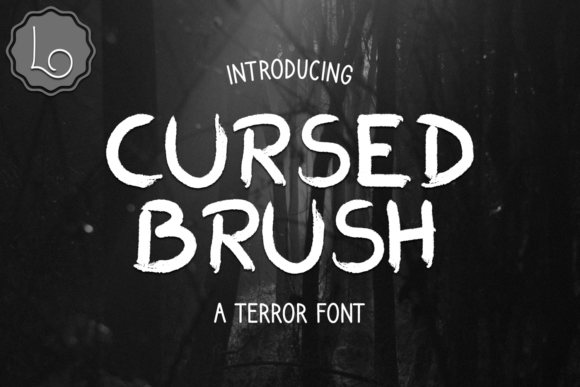
Cursed Brush: The Ultimate Display Font for Horror Design
The visual personality of Cursed Brush is defined by its chaotic yet controlled energy. Unlike standard serif or sans-serif Display fonts, this typeface mimics the look of a paintbrush dragged through wet ink or dried blood. It captures a raw, organic feel that feels both professional and slightly unhinged. When comparing it to other premium options, Cursed Brush offers a distinct texture that flat vector fonts simply cannot replicate.
The letterforms are constructed with varying stroke widths, creating a dynamic rhythm that draws the eye immediately. The weight distribution is heavy on the downstrokes, giving the text a sense of gravity and permanence. This makes it an excellent choice when you need a premium Display font that commands attention without requiring excessive sizing.
While the aesthetic is intentionally rough, the spacing between characters remains functional enough for headlines. However, because it is a free Display font designed for impact rather than body text, kerning should be adjusted carefully to avoid clashing strokes. It sits comfortably alongside other professional Fonts when used as a headline accent.
This typeface is incredibly versatile within the horror and thriller genres, but its application extends far beyond just spooky decorations. Designers can leverage its unique character across various media platforms effectively.
When creating a brand identity for a haunted attraction, a metal band, or a gritty streetwear label, Cursed Brush for logo design provides immediate recognition. Its irregular edges add a handmade quality that suggests authenticity and edge, making it superior to generic script logos.
For brands that want to stand out in a saturated market, using Cursed Brush for branding can define a specific mood. It works exceptionally well for packaging labels on craft beers, energy drinks, or limited-edition merchandise where a bold statement is required.
In the digital realm, Cursed Brush for posters/social media/packaging ensures high engagement rates. Its high contrast and dramatic flair stop the scroll on Instagram feeds and Facebook timelines, making it a top-tier choice for event promotions and campaign graphics.
Surprisingly, this font also finds a niche in alternative wedding designs. If you are planning a gothic-themed ceremony, Cursed Brush for wedding invitations/cards/typography adds a sophisticated, dark elegance that traditional scripts cannot achieve.
To maximize the impact of Cursed Brush, selecting the right companion typeface is crucial. You do not want two competing display styles fighting for dominance; instead, you need balance. A common question among designers is what fonts pair well with Cursed Brush? The answer lies in choosing clean, neutral typefaces that let the brush strokes shine.
For a classic Cursed Brush font pairing, combine it with a crisp geometric sans-serif like Montserrat or Helvetica. This combination creates a stark contrast between the organic chaos of the brush and the rigid order of the sans-serif, ensuring readability while maintaining style. Alternatively, if you need a more editorial look, pair it with a high-contrast serif like Bodoni. This approach elevates the font from a novelty to a best Display font for use cases involving luxury horror or avant-garde fashion.
When considering the best font combinations with Cursed Brush, keep in mind that the secondary font should have low visual weight. Avoid pairing it with another script or brush font unless you are an expert typographer, as this often results in a cluttered and difficult-to-read layout.